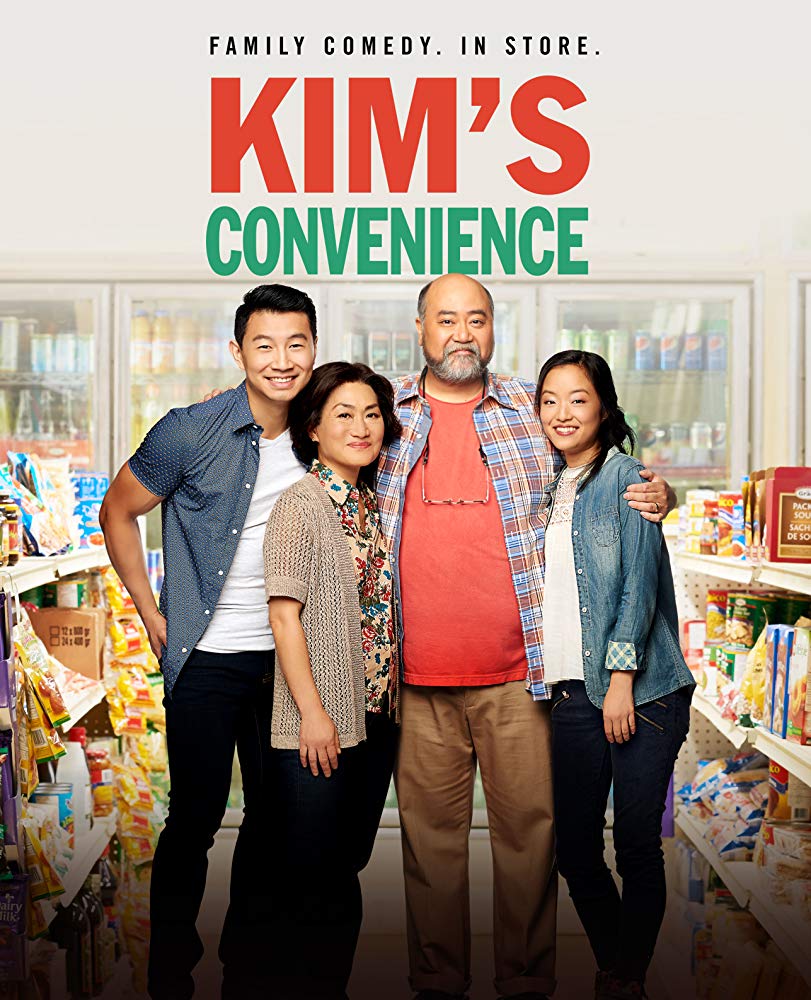
Kim's Convenience Font
ComedyKim’s Convenience is a Canadian television sitcom that premiered in 2016. The show follows the lives of a Korean-Canadian family who own a convenience store in Toronto.
The TV series title Kim’s Convenience seems to use two variants of Franklin Gothic. The "Kim’s” part uses the condensed weight and the “Convenience” in the extra condensed weight. Morris Fuller Benton created Franklin Gothic, a grotesque sans, in 1902 for ATF.